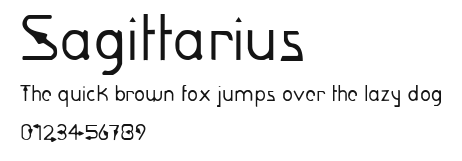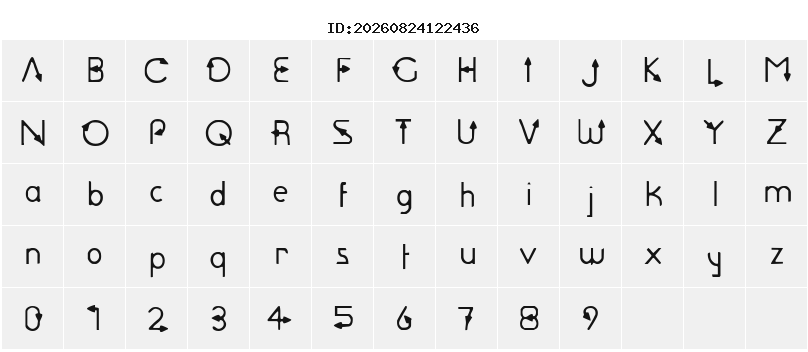
About Sagittarius.ttf
Sagittarius.ttf is a modern, elegant sans-serif font designed for ultimate readability and visual harmony. Perfect for branding, headlines, web design, and print materials.